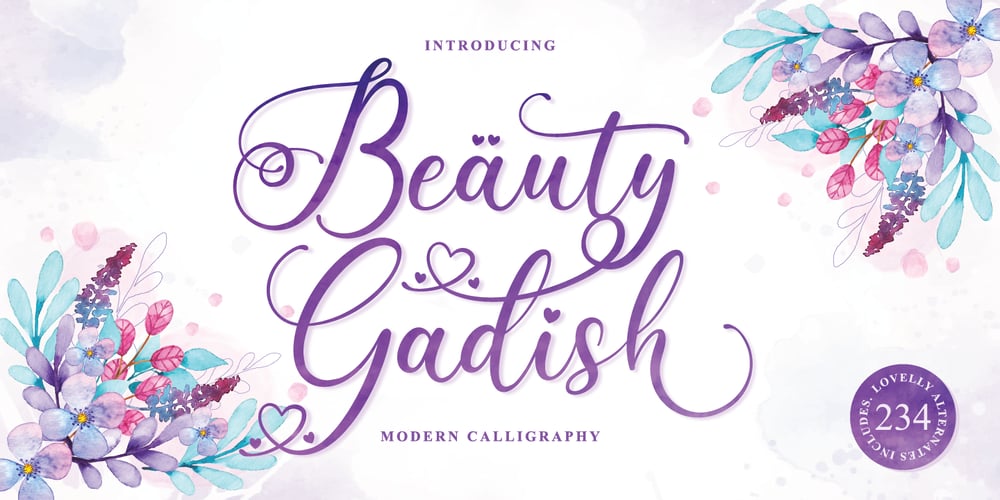
Beauty Gadish Font Family was designed by Rinto Dwi Nugroho and published by Almeera Studio. Beauty Gadish contains 1 styles and family package options. Beauty Gadish is a lovely modern calligraphy that brings a luxury feel. The natural hand writing script is suitable for headline, logotype, apparel, wedding invitations, branding, packaging, advertising, watermark, and more. This typeface comes in uppercase, lowercase, with punctuations, symbols and numerals, stylistic set alternates, ligatures, and also has multi-lingual support.